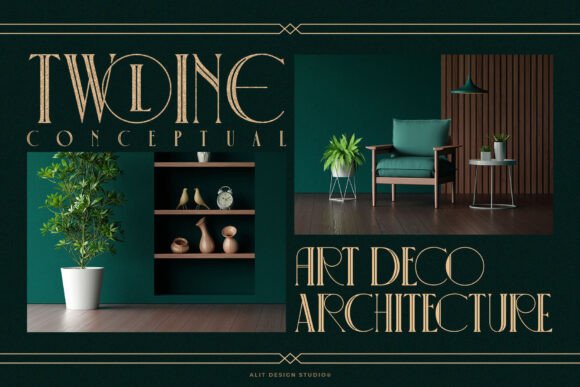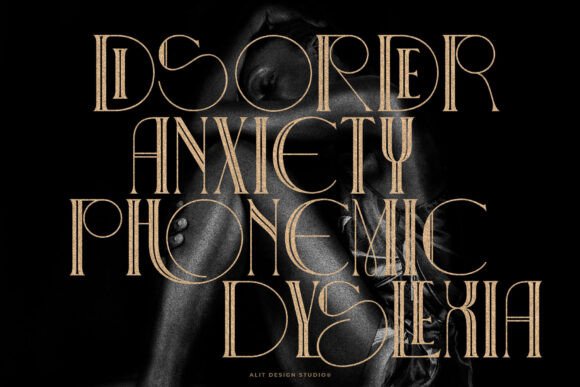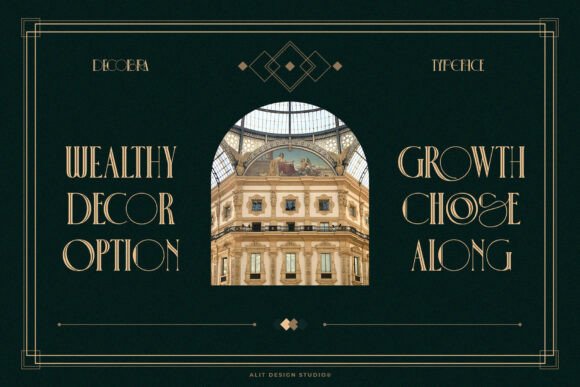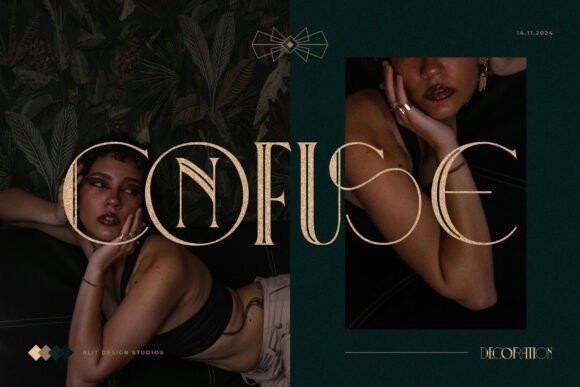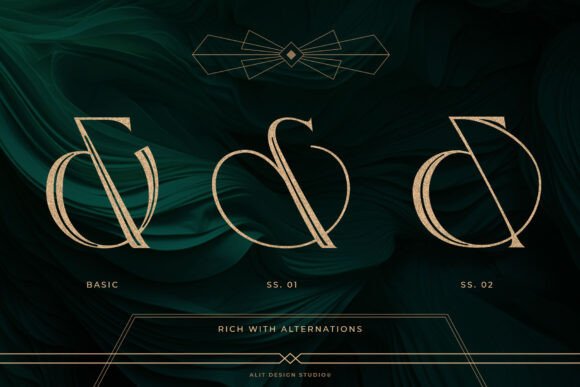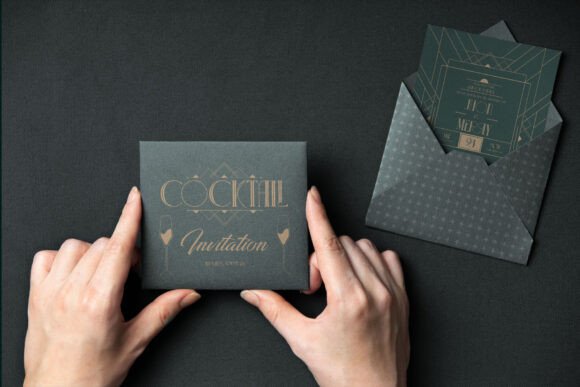
Introducing Decobra Font: The Ultimate Art Deco Typeface for Modern Designers
Step into the golden era of design with Decobra, a one-of-a-kind Art Deco typeface that exudes elegance and modern sophistication. This stunning font is perfectly balancing dynamic thick and thin strokes, making it an extraordinary choice for vintage-inspired yet contemporary projects. In this article, we’ll dive into the features and benefits of Decobra, and explore how it can elevate your designs to the next level.
A Rich Collection of Glyphs: 809 Characters at Your Fingertips
Decobra boasts an impressive collection of 809 characters, giving you the freedom to create captivating text compositions that will leave a lasting impression on your audience. With such a vast array of glyphs at your disposal, you can experiment with different combinations to craft unique and visually appealing designs. Whether you’re working on a logo, brochure, or website, Decobra’s extensive character set has got you covered.
Unlock Creative Possibilities with Extensive Alternatives
One of the standout features of Decobra is its extensive alternatives, which allow you to customize every letter to suit your design needs. With multiple stylistic sets, you can mix and match different letterforms to create a truly unique typographic style. This level of flexibility is perfect for designers who want to push the boundaries of creativity and produce something truly remarkable.
Seamless Ligatures for Visually Stunning Typography
Ligatures are an essential feature in typography, allowing designers to create visually stunning text compositions that flow seamlessly. Decobra’s ligatures enable you to blend characters together, creating a harmonious and elegant look that’s perfect for high-end designs. Whether you’re working on a luxury brand or a creative project, Decobra’s ligatures will help you achieve a professional and polished finish.
Add Flair and Personality with Swashes
Swashes are a great way to add a touch of personality to your designs, and Decobra’s swashes are no exception. With a range of decorative flourishes to choose from, you can elevate your designs and make them stand out from the crowd. From elegant and sophisticated to bold and playful, Decobra’s swashes offer the perfect way to inject some creativity into your typography.
PUA Unicode Accessibility for Easy Character Access
PUA Unicode accessibility is a game-changer for designers, making it easy to access special characters and extras without hassle. Decobra’s PUA Unicode accessibility ensures that both beginners and pros can use the font with ease, saving time and effort in the design process. With Decobra, you can focus on creating stunning designs rather than getting bogged down in technical complexities.
Multilingual Support for a Global Audience
In today’s global design landscape, it’s essential to have a font that can communicate with a diverse audience. Decobra’s multilingual support makes it the perfect choice for designers who need to create content for a global market. From Latin-based alphabets to extended accents, Decobra speaks to a global audience, ensuring that your designs are accessible and engaging for everyone.
Why Choose Decobra Font?
So why choose Decobra font for your next design project? Here are just a few reasons why Decobra stands out from the crowd:
- Elegant and modern sophistication: Decobra’s Art Deco style exudes elegance and sophistication, making it perfect for high-end designs.
- Flexibility and creativity: With 809 characters, extensive alternatives, ligatures, and swashes, Decobra offers unparalleled flexibility and creative possibilities.
- Easy to use: Decobra’s PUA Unicode accessibility makes it easy to access special characters and extras, saving you time and effort.
- Multilingual support: Decobra’s multilingual support ensures that your designs can communicate with a global audience.
In conclusion, Decobra font is a game-changer for designers who want to create stunning, high-end designs that exude elegance and modern sophistication. With its rich collection of glyphs, extensive alternatives, seamless ligatures, and decorative swashes, Decobra offers a world of creative possibilities. Whether you’re working on a luxury brand, a creative project, or a global design campaign, Decobra is the perfect choice for designers who want to push the boundaries of typography and design.